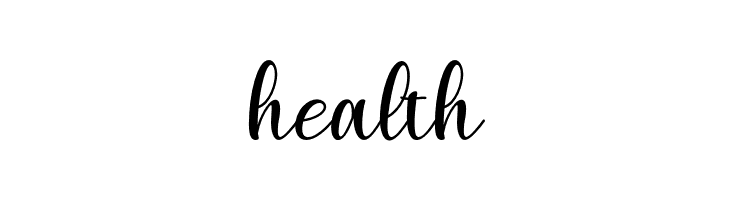
An elegant, flowing script font with a natural handwritten style.
A modern, elegant script font with flowing, cursive letters and artistic swashes.
A flowing, elegant script font with a natural handwritten style.